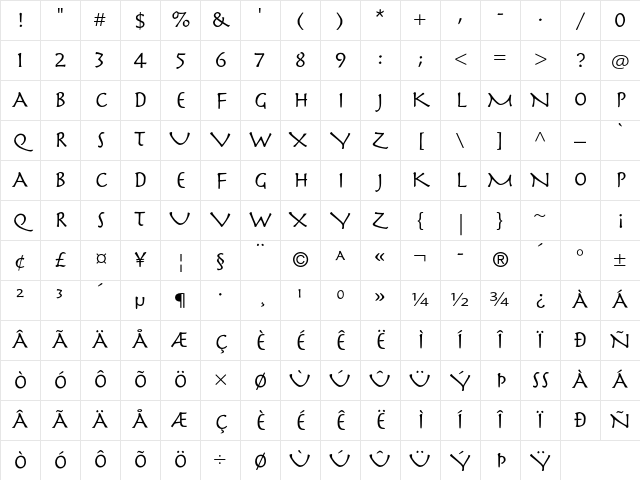
Herculanum LT Std Roman
Herculanum LT Std Family
Design Context for Herculanum LT Std
Herculanum LT Std is a composed and adaptable typeface that performs quietly and consistently across a wide range of design contexts. Its slender proportions lend an understated elegance to any composition.